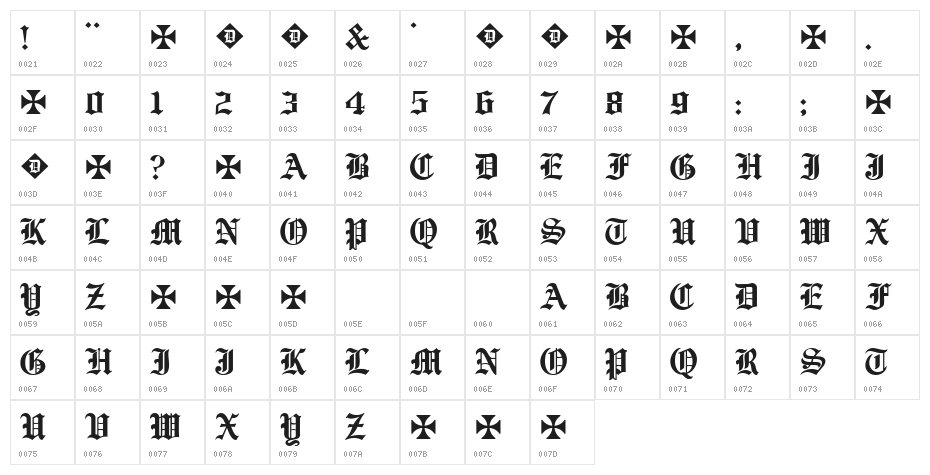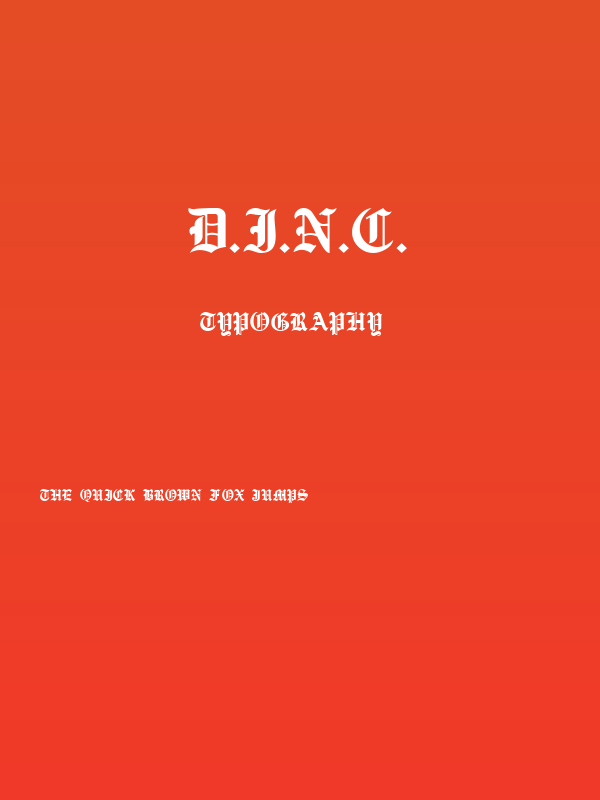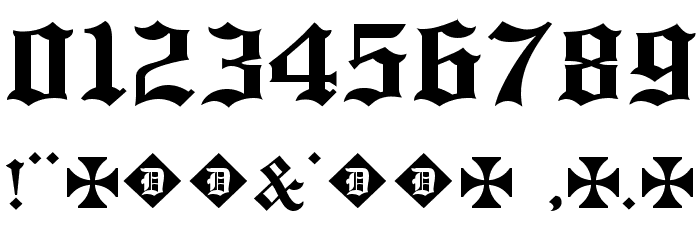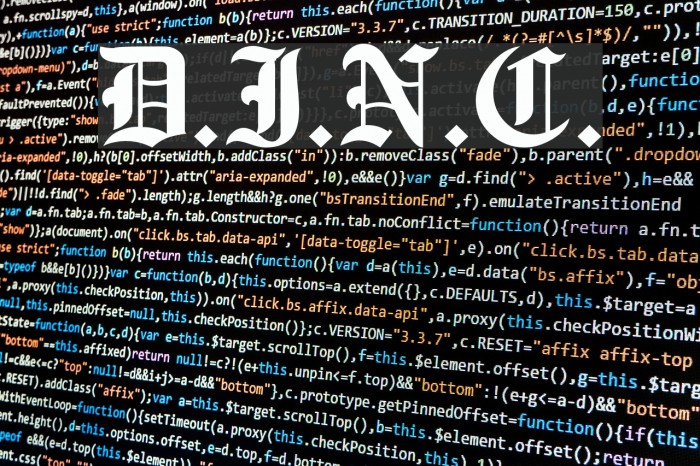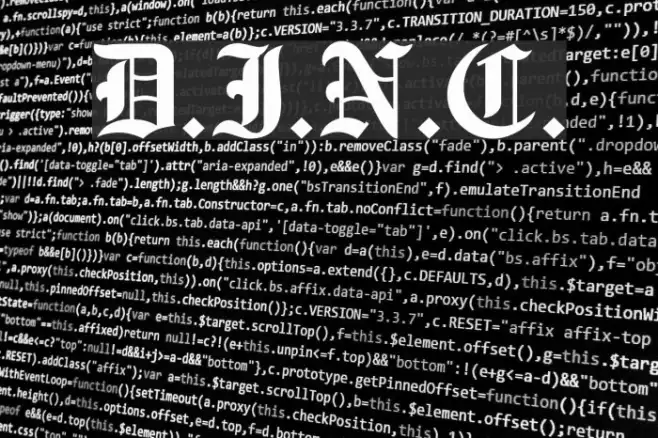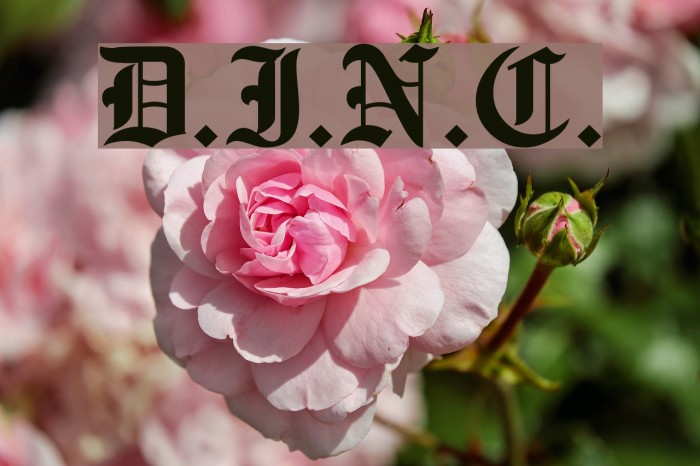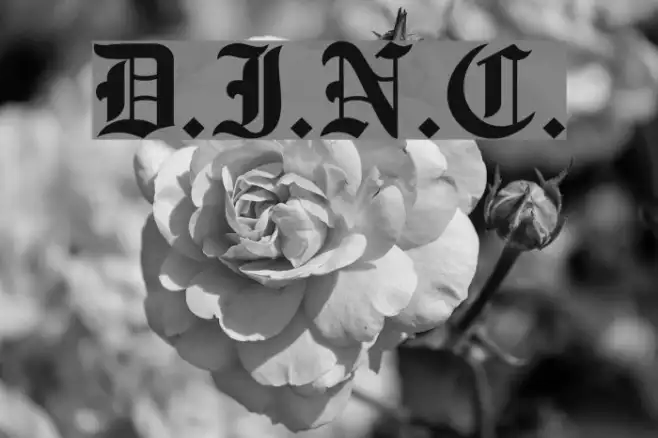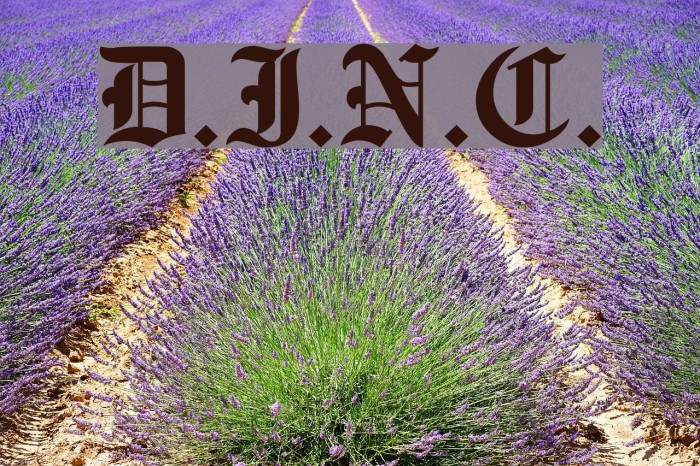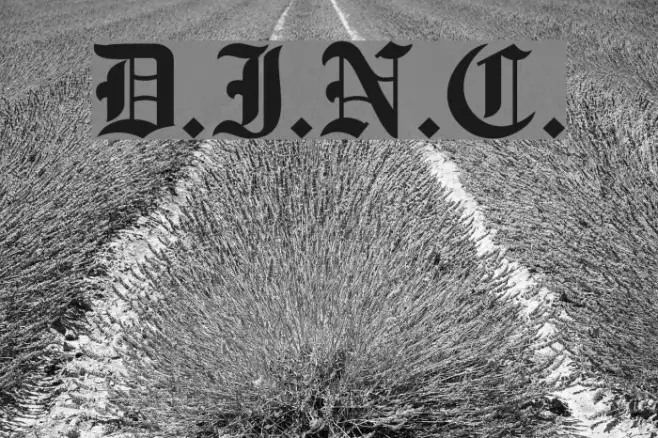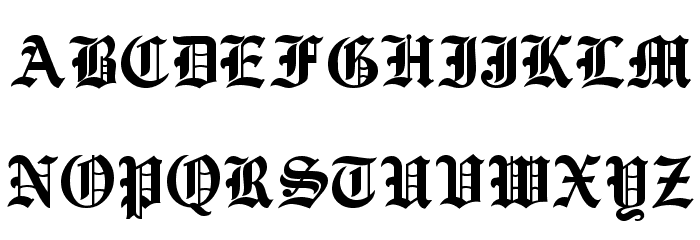
D.I.N.C. Font
D.I.N.C. Description
This font features a bold and dramatic Blackletter style, characterized by its intricate and ornate letterforms. The strokes are thick and angular, with sharp serifs and decorative elements that give it a medieval and gothic appearance. The uppercase and lowercase letters maintain a consistent style, with a strong emphasis on vertical lines and pointed edges. The numerals and special characters are equally elaborate, complementing the overall aesthetic. This font is designed to capture attention and convey a sense of tradition and formality.
| Overall Style | Gothic, Medieval |
| Use Case | Headlines, Logos, Decorative text |
| Proposed Projects | Ideal for projects requiring a historical or medieval theme, such as book covers, posters, or branding for events and products with a vintage or gothic appeal. |